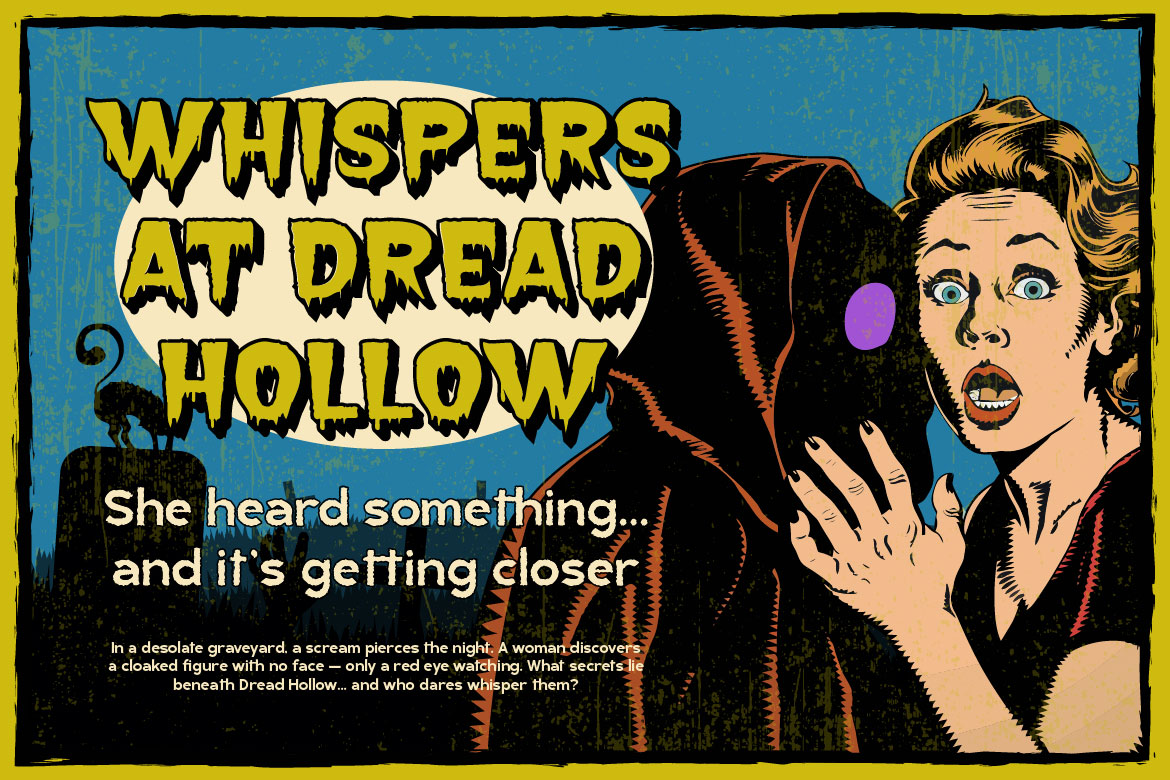
In the vast landscape of graphic design, most typography is created to look welcoming, clean, and elegant. But there is a massive multi-billion-dollar entertainment market where the goal is the exact opposite: to shock, terrify, unnervingly thrill, and command attention from the dark.
From Hollywood blockbuster horror films and survival horror video games to haunted house attractions, Halloween capsule collections, and extreme metal tour merch, horror typography is an essential visual storytelling tool.
A great horror font does not merely spell out a title—it immediately sets the atmospheric rules of the monster, the slasher, or the paranormal threat. It conveys raw fear, gore, psychological dread, and visceral adrenaline before a single frame of video is watched.
At Burntilldead Studio, our handcrafted display collection includes specialized macabre and distressed horror typefaces built with intense vector detail. In this guide, we will break down the mechanics of extreme horror typography and how to style it for maximum cinematic impact.
Designing a terrifying font requires breaking traditional rules of balance and harmony. Where clean fonts seek smooth geometry, horror typography introduces chaos, decay, and organic distortion.
Key structural characteristics of horror fonts include:
When building a terrifying visual identity, choosing a font with deep vector detail is essential—especially for large-format printing like movie posters, billboards, and hoodies. Here are two standout horror faces from our catalog:
Deathgrin is an extreme horror font engineered specifically for cinematic movie titles and shock graphics. It features visceral dripping blood textures, razor-sharp spurs, and dense blackletter structural weight.
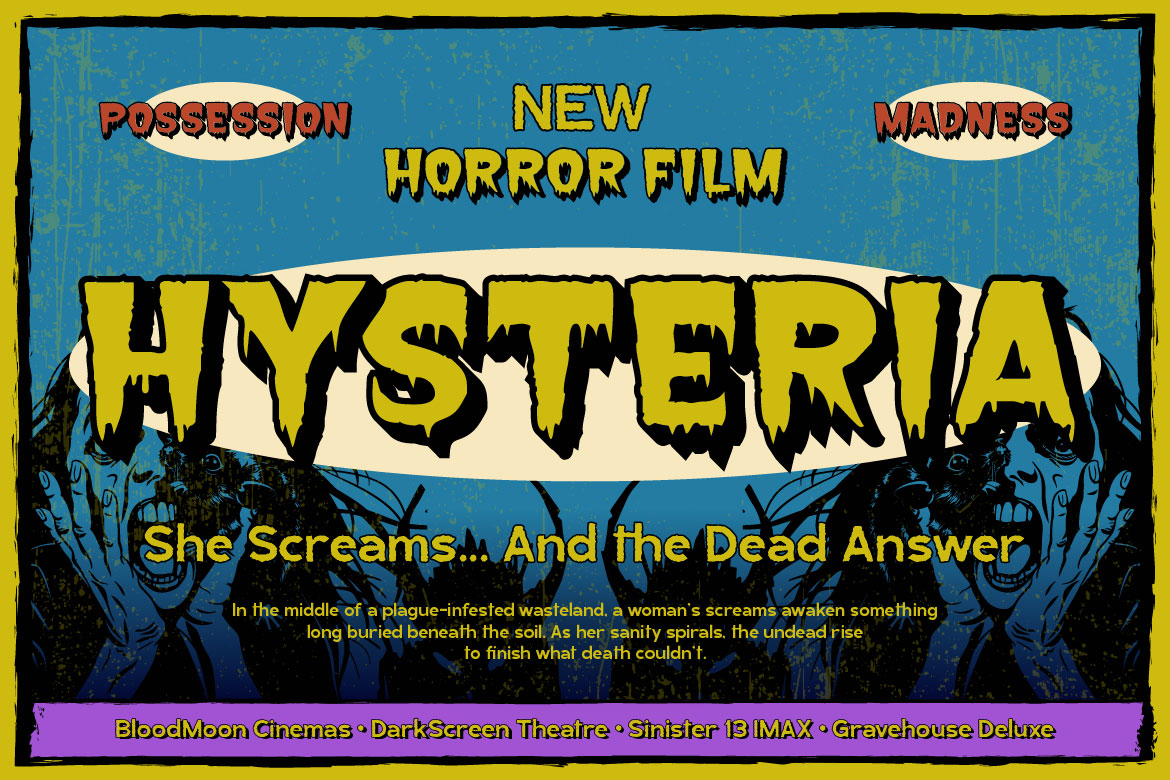
If your project leans toward psychological dread, haunted houses, or dark fantasy, Terrify offers jagged, bone-like letterforms that feel ancient and cursed.
Extreme horror typography thrives across dynamic entertainment sectors that rely on thrill-seeking audiences.
A horror movie poster has seconds to catch a viewer’s eye on a billboard or Netflix thumbnail. A bold, bloody font like Deathgrin anchored at the top or center creates instant genre recognition, signaling slasher, zombie, or creature-feature horror.
Video games require bold title logos that look incredible when animated, lit with glowing volumetric shaders, or rendered in 3D. Horror display fonts provide the intricate vector paths needed for game developers to apply blood shaders and lighting effects.
Halloween is no longer just a one-day holiday—it is a major seasonal fashion trend. Streetwear brands drop limited-edition horror merch, graphic tees, and hoodies featuring bloody display fonts paired with retro slasher art.
To ensure your horror designs look like professional Hollywood productions rather than cheap clip-art, follow these professional typesetting guidelines:
Never place a flat horror font on a plain white background! Horror typography needs environmental lighting. Place your text over dark, moody backgrounds (foggy forests, abandoned corridors, or dark stormy skies), and apply subtle drop shadows, outer glows, or inner grunge textures.
Shock value depends on color contrast:
Give your title layout narrative drama by dramatically scaling letter sizes. Make the first and last letters of a word twice as large as the middle letters, or let dripping blood tendrils overlap surrounding framing borders.
Secondary text (like “In Theaters October 31st”, “Directed By…”, or “Wishlist on Steam”) must be ultra-clean. Use a simple monospaced or sans-serif font so the main horror title receives 100% of the visual focus.
In the world of shock entertainment and seasonal branding, subtle design gets ignored. By adding handcrafted macabre typefaces like Deathgrin and Terrify to your design arsenal, you can build movie-quality visuals that command attention in the dark.